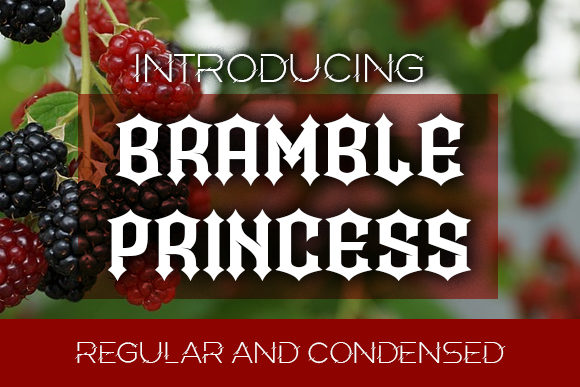
The Bramble Princess Font: A Bold Blackletter Beauty
I’ll never forget the design struggle I faced while working on a project for a client who wanted a bold, eye-catching font to match their brand’s edgy personality. I scoured the internet for hours, trying out font after font, but nothing seemed quite right. That was until I stumbled upon the Bramble Princess font. With its masterfully designed blackletter style, it instantly became my go-to choice. In this article, I’ll share my love for this font, its features, and how to make the most of it in your designs.
• ✨ Bold and eye-catching: The Bramble Princess font is perfect for making a statement in your designs. Its bold blackletter style demands attention and adds a touch of sophistication.
• ✅ Highly versatile: Whether you’re working on a logo, poster, or social media graphic, this font adapts seamlessly to different design contexts.
• 💡 Inspires creativity: The unique character of Bramble Princess sparks imagination and encourages you to experiment with innovative design ideas.
While the Bramble Princess font is exceptional, there are a few minor considerations to keep in mind:
• 🤔 Legibility at small sizes: As with many blackletter fonts, Bramble Princess can be challenging to read at very small sizes. It’s best used at larger sizes where its intricate details can shine.
• ⚠️ Limited use in body text: Due to its bold and ornate nature, this font is better suited for headlines, titles, or short paragraphs rather than lengthy body text.
The Bramble Princess font was crafted with inspiration from medieval manuscripts and modern calligraphy. Its designer aimed to create a font that combines traditional blackletter elements with a fresh, modern twist. The result is a font that’s both timeless and trendy, perfect for designers looking to add a touch of elegance and boldness to their work.
Q: What type of projects is Bramble Princess best suited for?
A: Bramble Princess excels in projects that require a bold, eye-catching font, such as logos, posters, social media graphics, and titles or headings in presentations.
Q: Is Bramble Princess a difficult font to read?
A: While Bramble Princess is a bold and ornate font, it can be challenging to read at very small sizes. It’s best used at larger sizes or for short texts.
Q: Does Bramble Princess support OpenType features?
A: Yes, Bramble Princess supports OpenType features, including ligatures, stylistic alternates, and glyphs, which can add more variety and creativity to your designs.